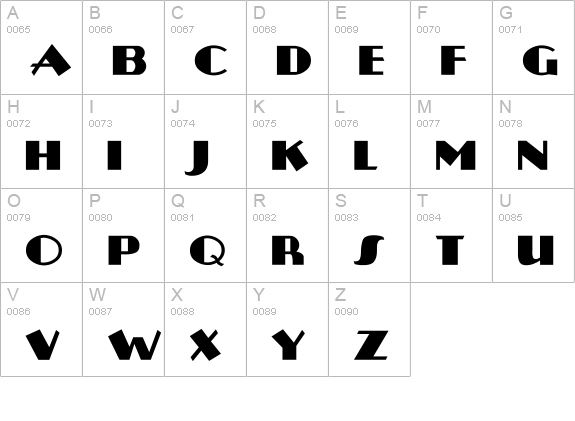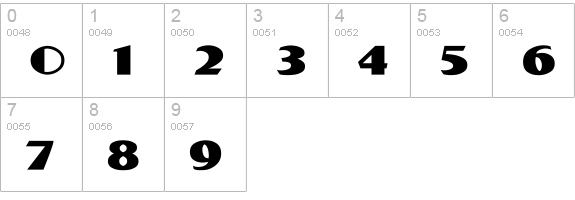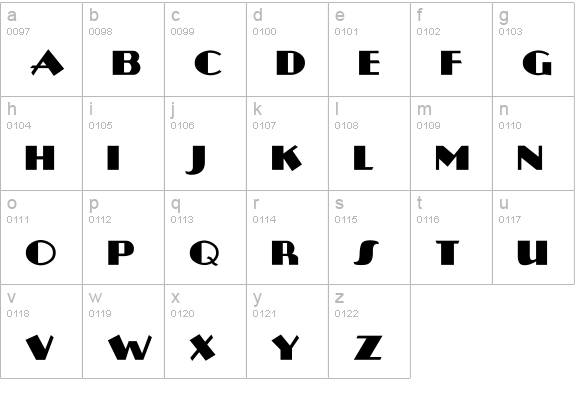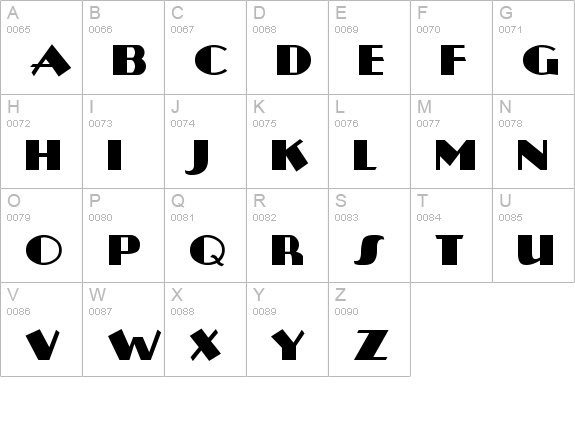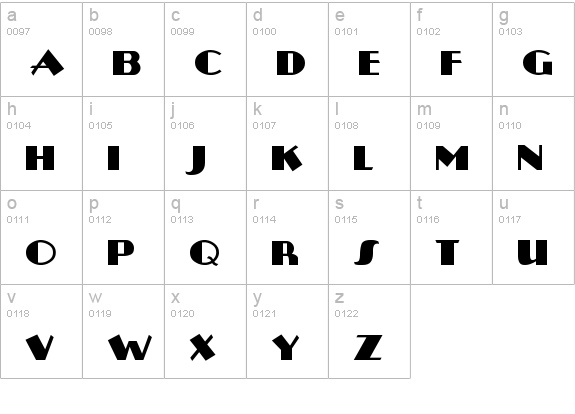
Plug-NickelBlack Font Details
Introducing Plug-NickelBlack font, a bold and eye-catching typeface designed to make a statement in your projects. With its sleek lines and modern aesthetic, this font exudes confidence and sophistication. The Plug-NickelBlack font is versatile and can be used for various design purposes, from logos to posters to website headers. What's even better is that Plug-NickelBlack font is absolutely free to download at FontsMarket.com. This means you can easily access this stylish font and use it to elevate your designs without any cost. Don't miss out on the opportunity to enhance your projects with the Plug-NickelBlack font - download it today and let your creativity shine!